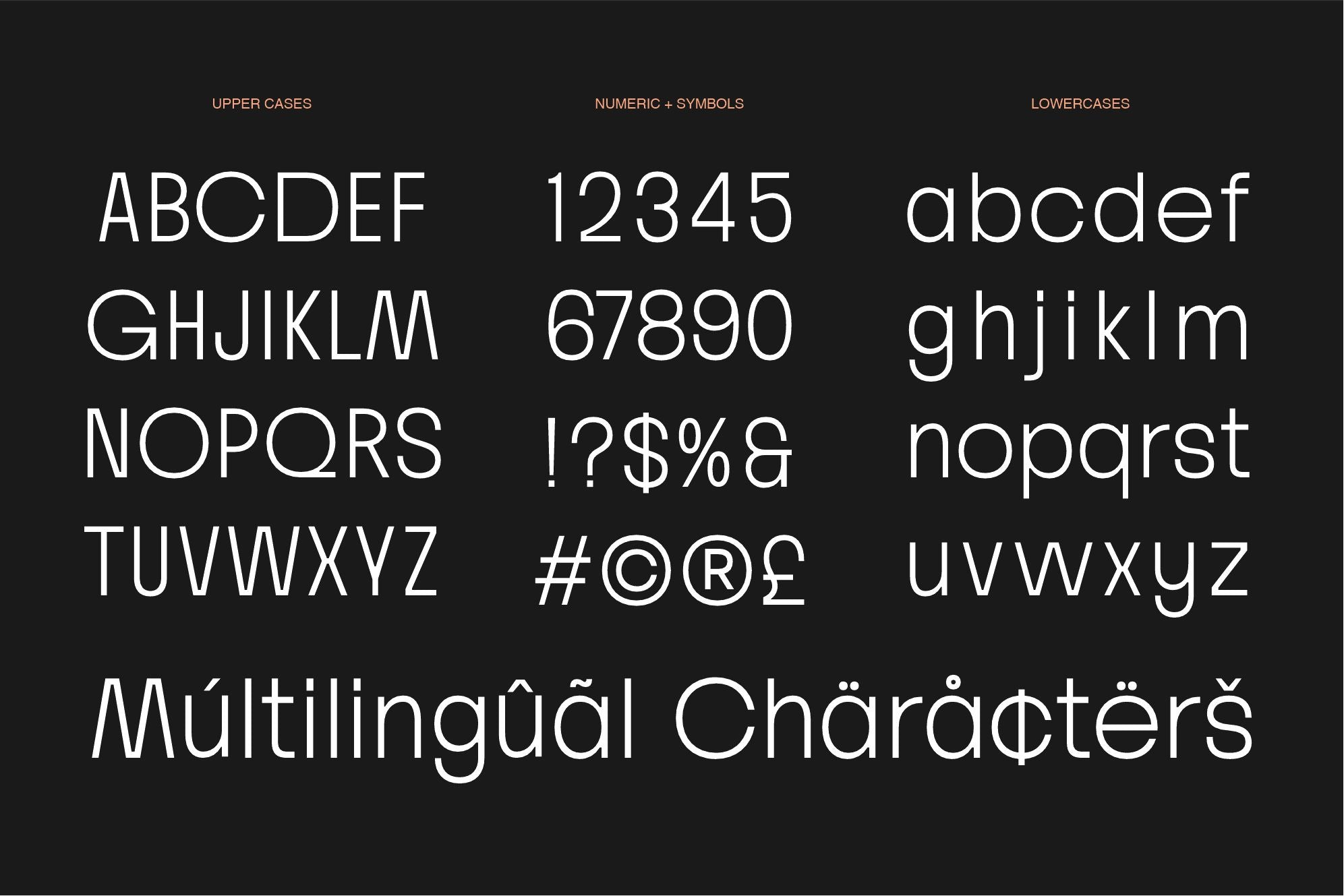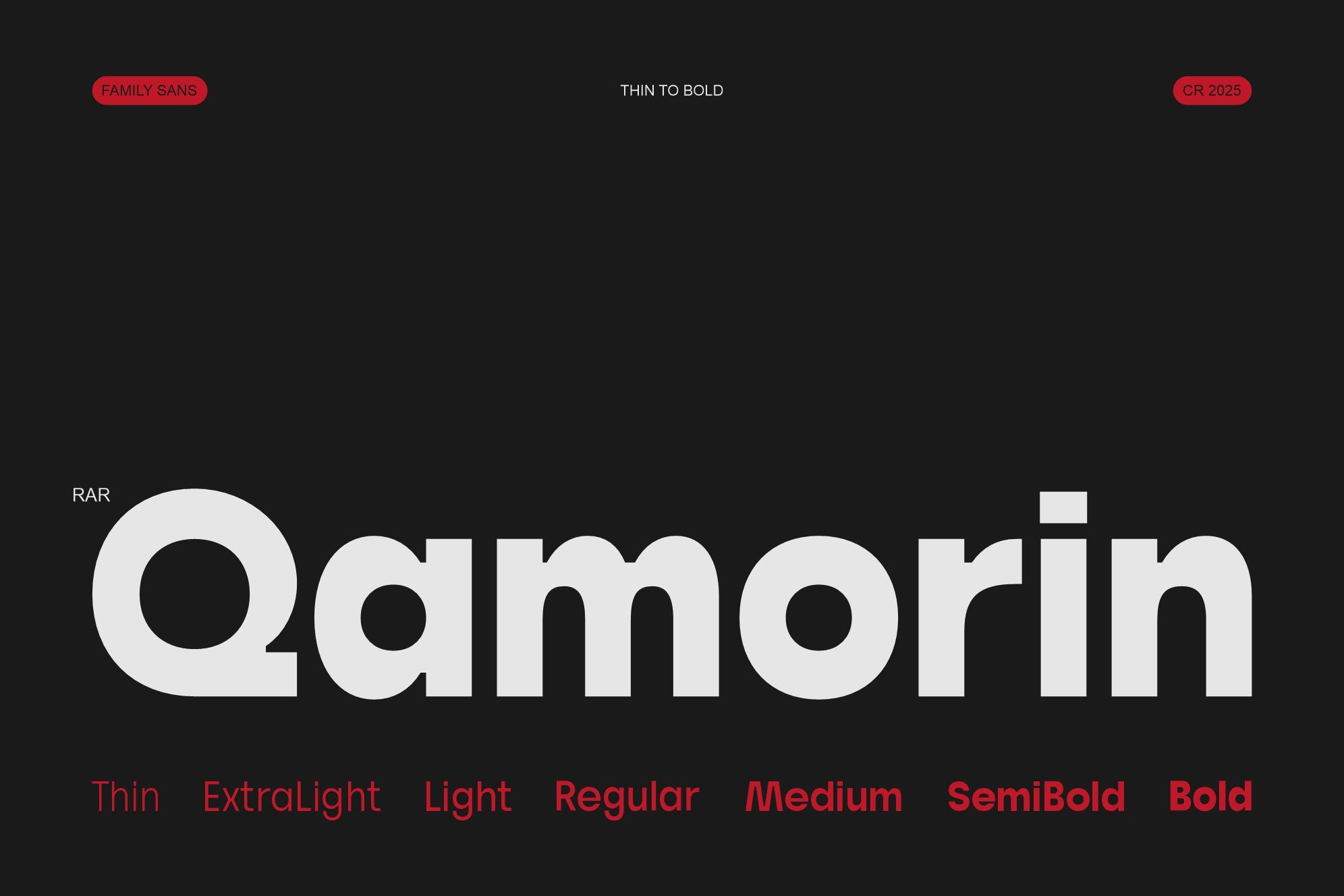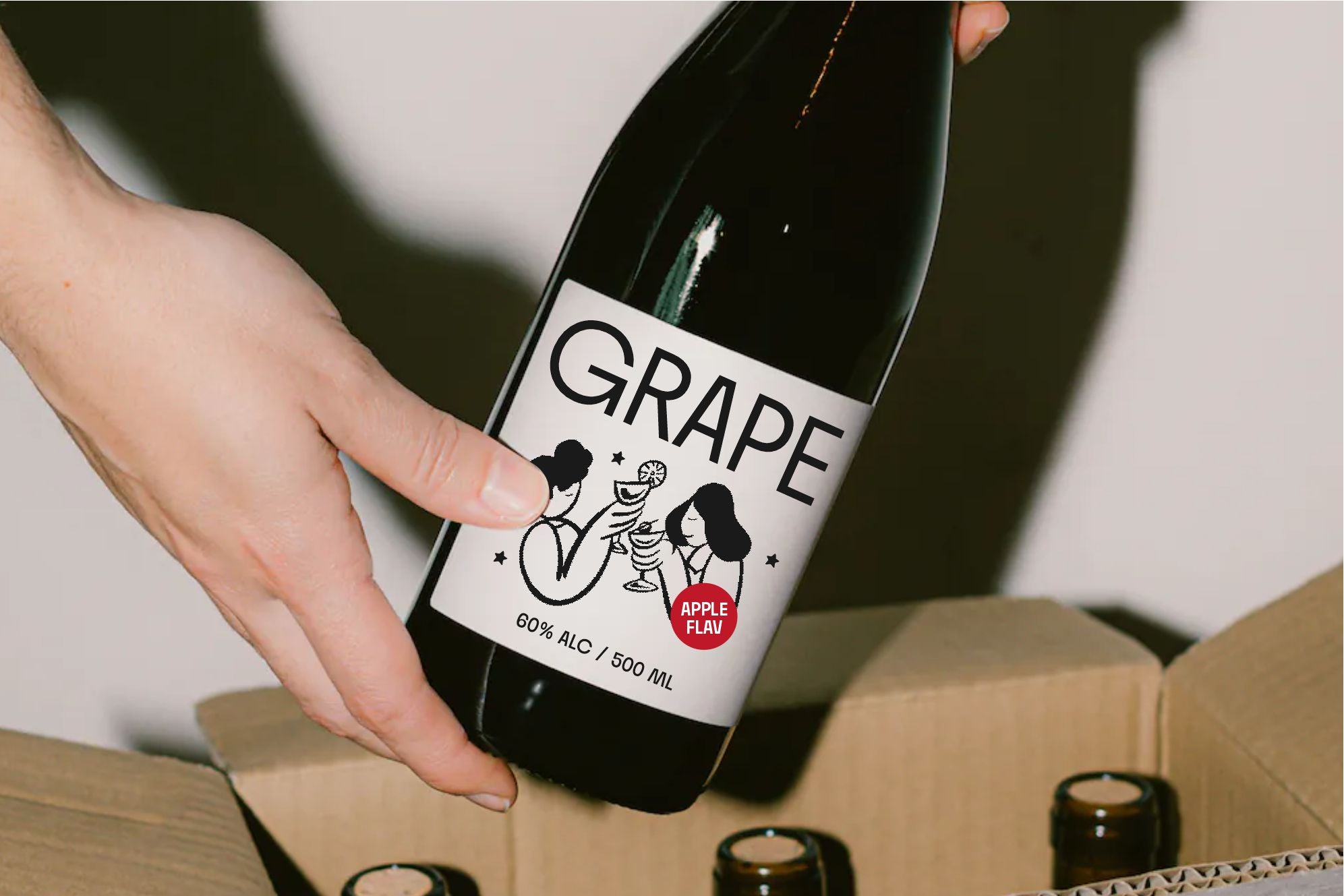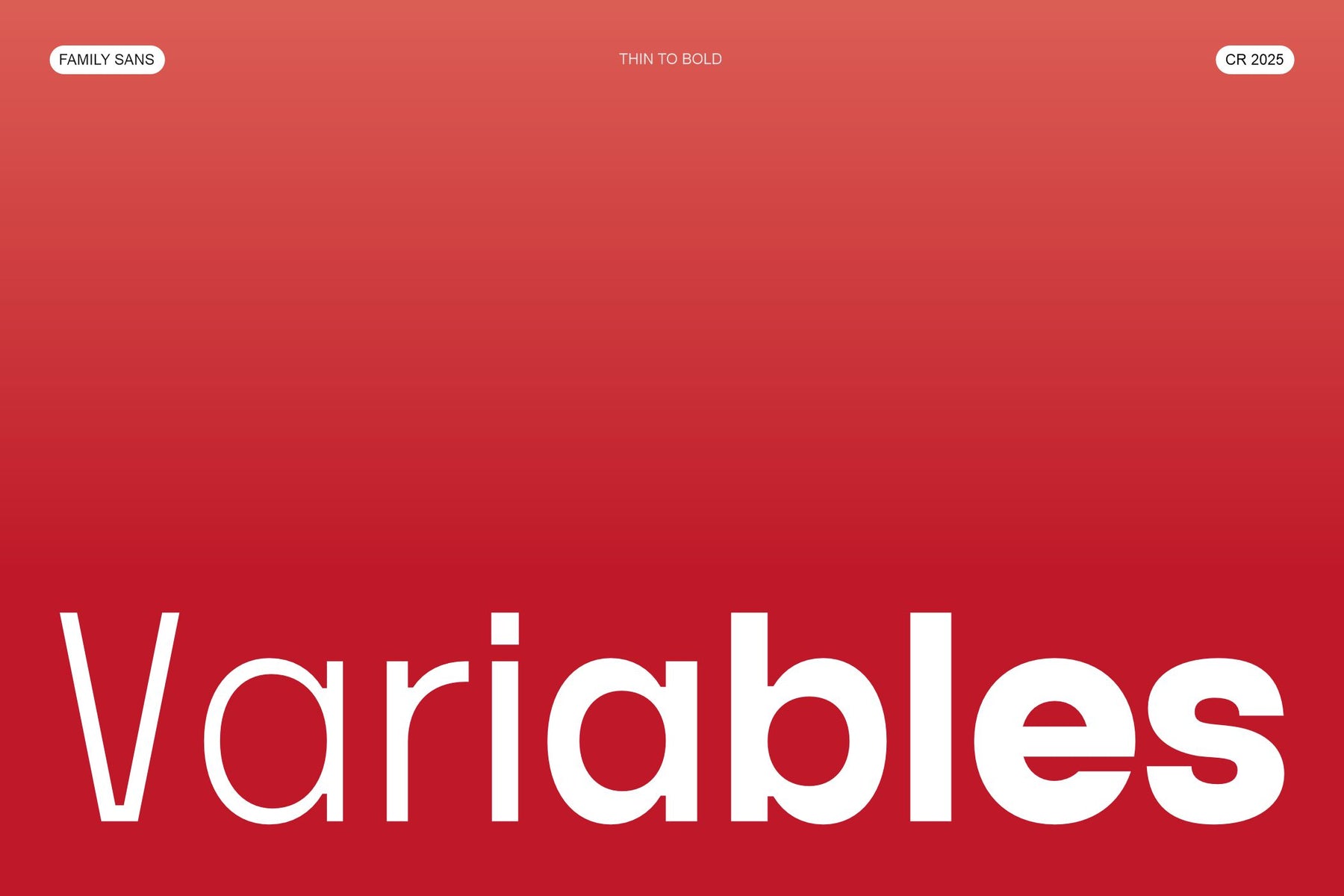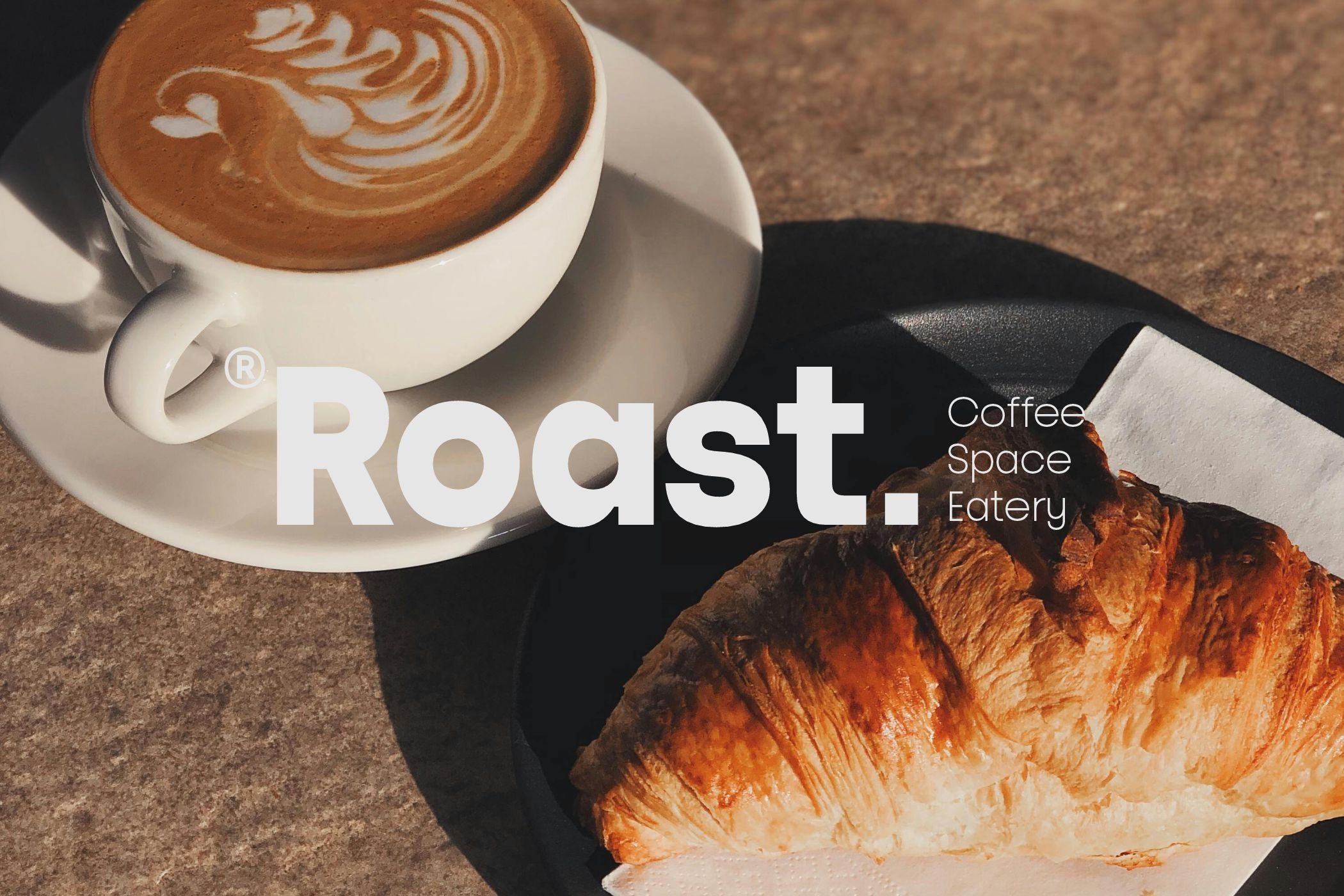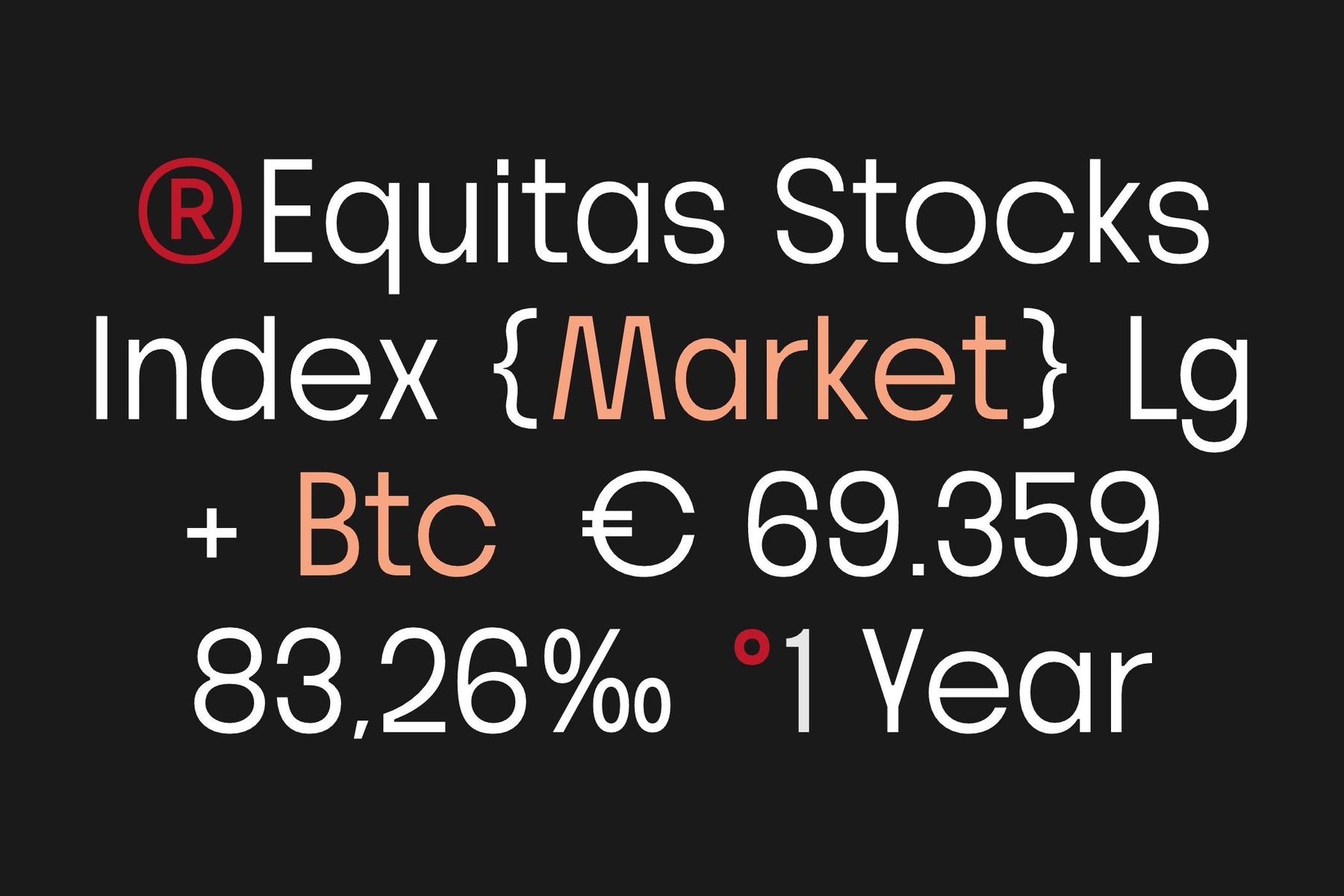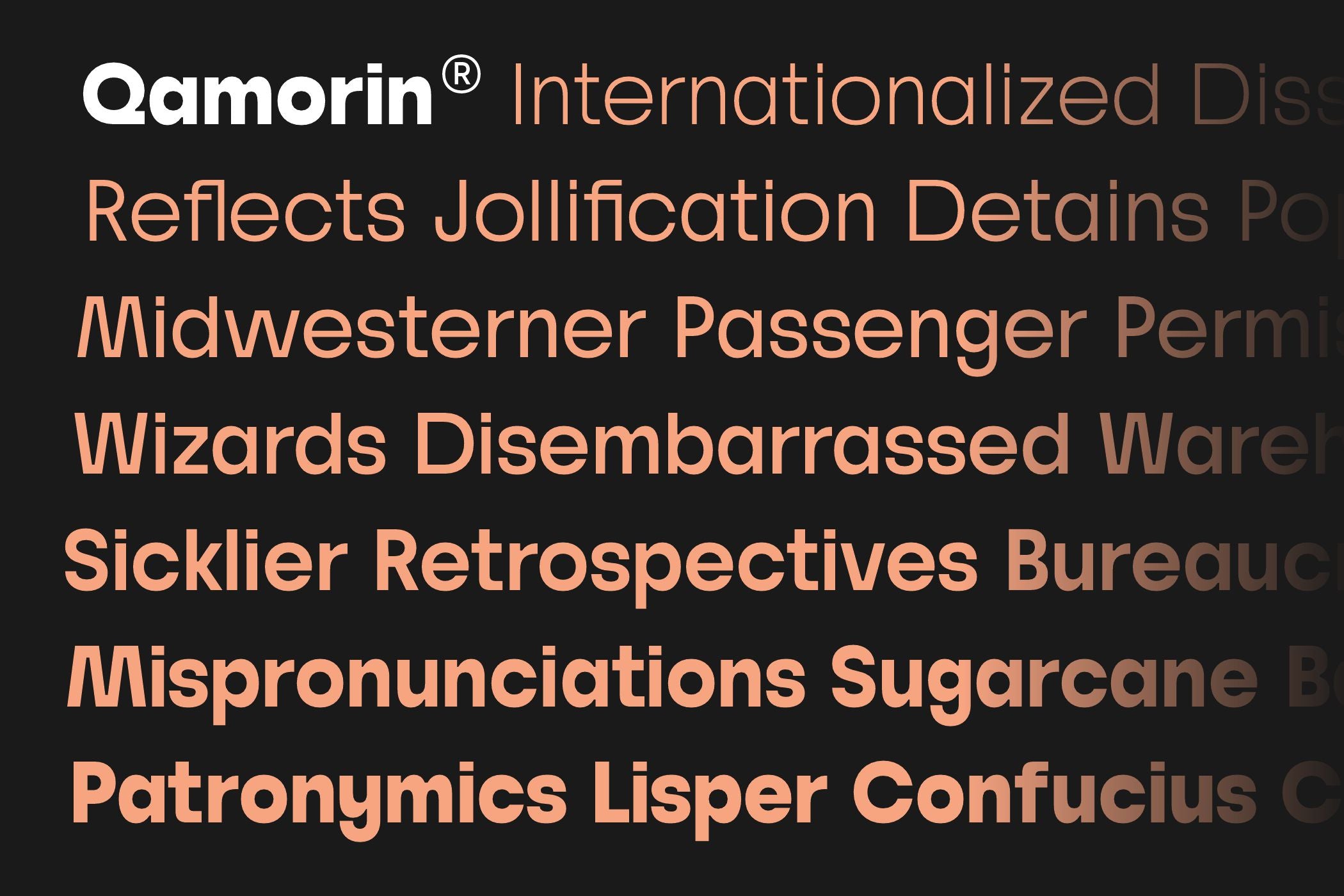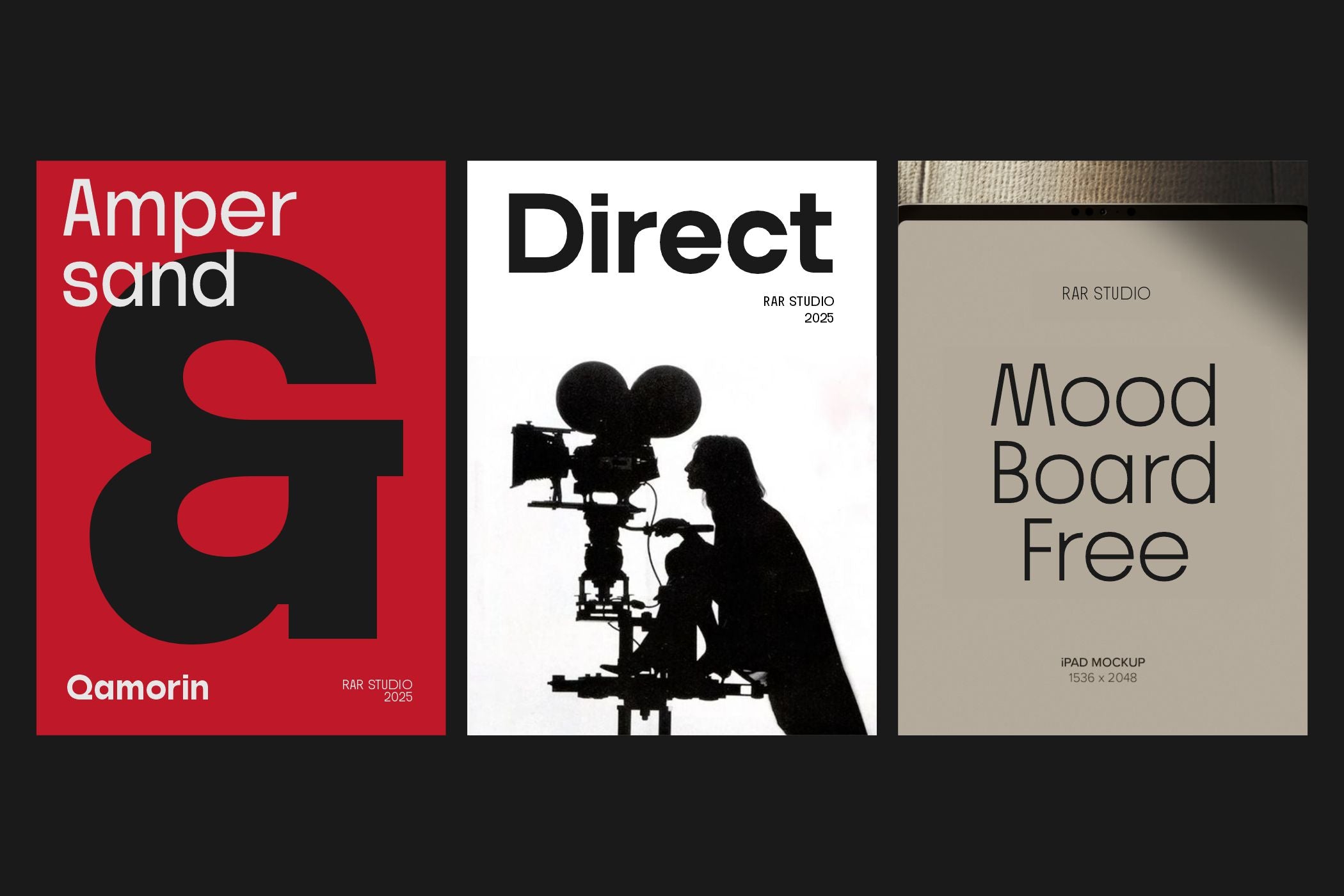
Qamorin Family Sans
Qamorin Family Sans created by Rar Typeworks is a modern geometric grotesk typeface family crafted with precision and balance.
Featuring seven weights from Thin to Bold, Qamorin offers exceptional versatility for both display and text use.
Its clean geometry, harmonious proportions, and contemporary aesthetic make it ideal for branding, editorial design, digital interfaces, and corporate identity.
Qamorin reflects the essence of modern design minimal, timeless, and highly legible across every medium.